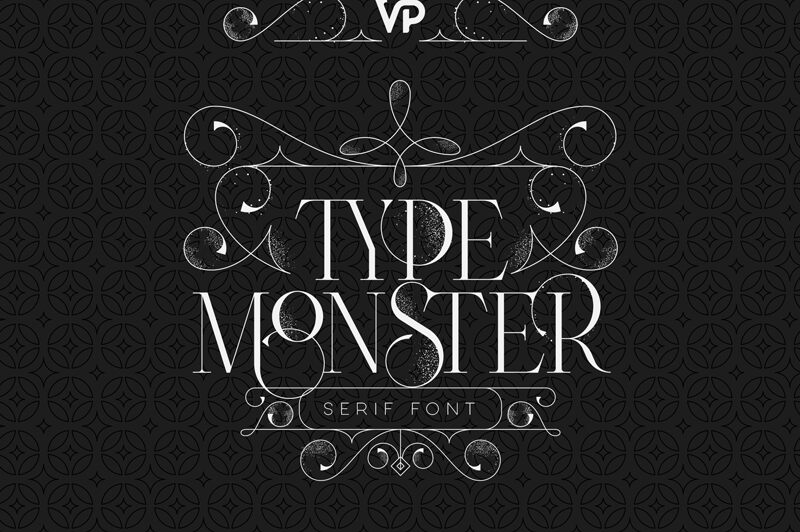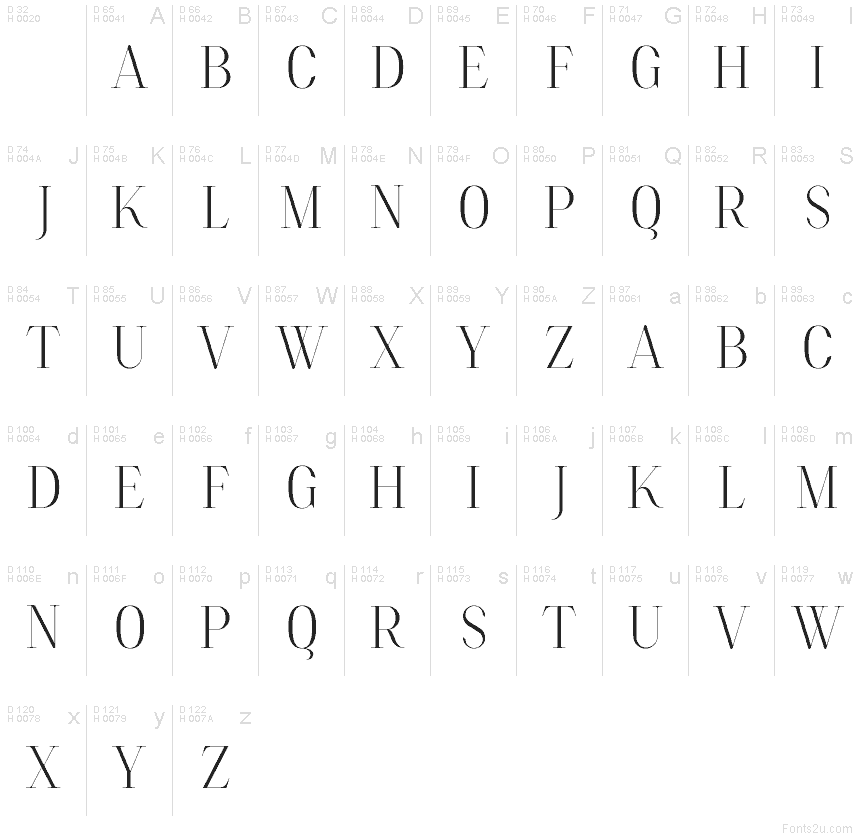
Type Monster Free Demo
Type Monster font by VPcreativeshop is a free fashion serif typeface. Its razor-thin strokes and tall, sculpted forms create a cool, glassy sheen that reads like runway typography—sleek, elegant, and just a little dangerous. The rhythm is taut and refined, giving headlines a snap while keeping the texture airy and modern.
Using Type Monster, your work takes on a luxe editorial voice that shines on magazine mastheads, beauty and perfume packaging, fashion posters, event invitations, album covers, and social media title cards. This free font rewards generous sizing and a touch of tracking. Pair it with a crisp sans for body copy to keep the spotlight on those lean, polished letters.